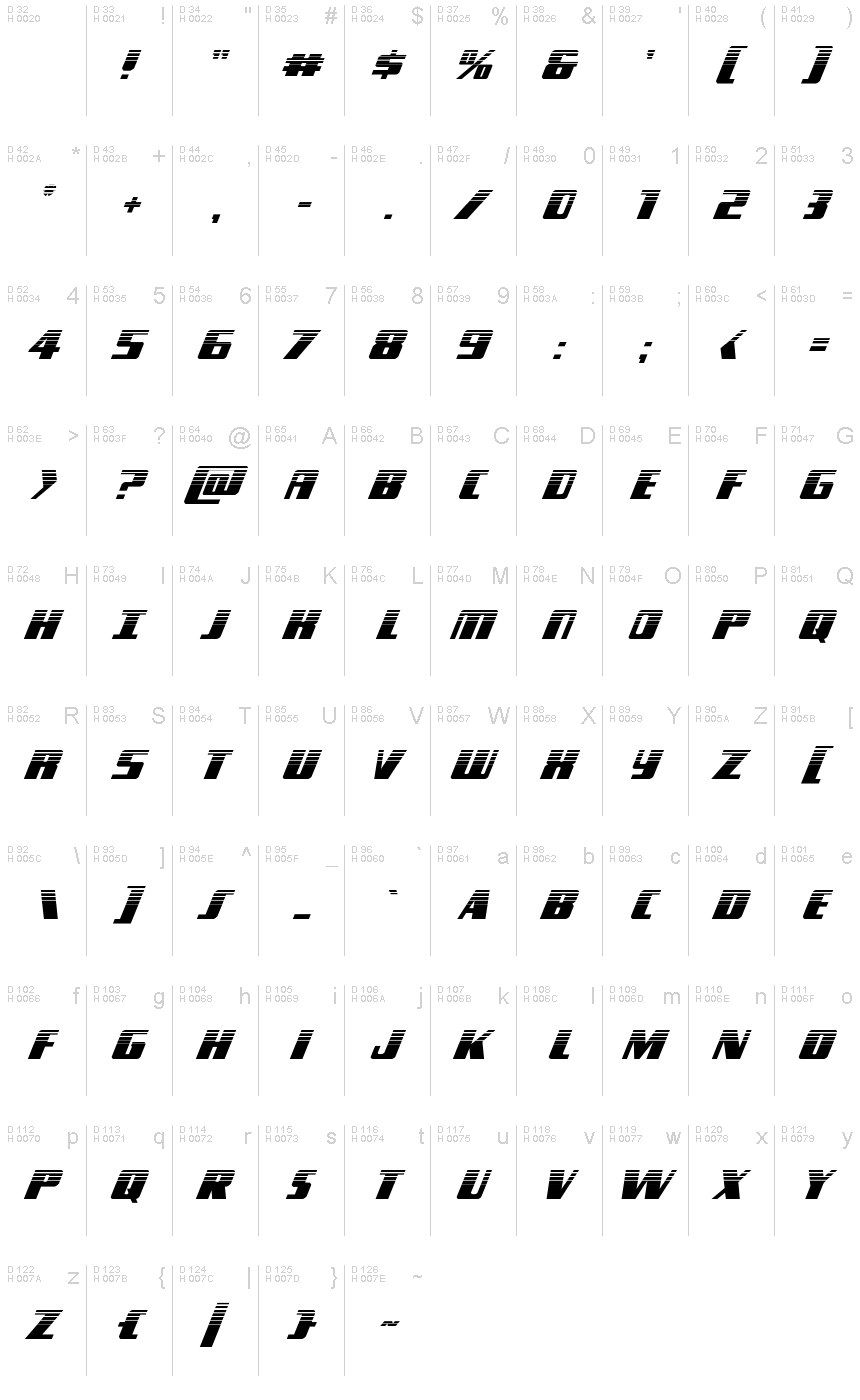
Typhoon Halftone Italic
Typhoon Halftone Italic is a striking sans serif font by Iconian Fonts that commands attention with its bold, dynamic presence. Characterized by a striking combination of italicized angles and unique halftone design, this font exudes modernity and energy. Its thick, uniformly bold strokes ensure it stands out, making it ideal for headlines and impactful statements.
The visually captivating nature of Typhoon Halftone Italic makes it perfect for advertising, posters, branding, and any project needing a robust visual impact. Whether used to capture the essence of movement or add an edgy flair to a design, this font's distinctive style breathes life into any creative endeavor.